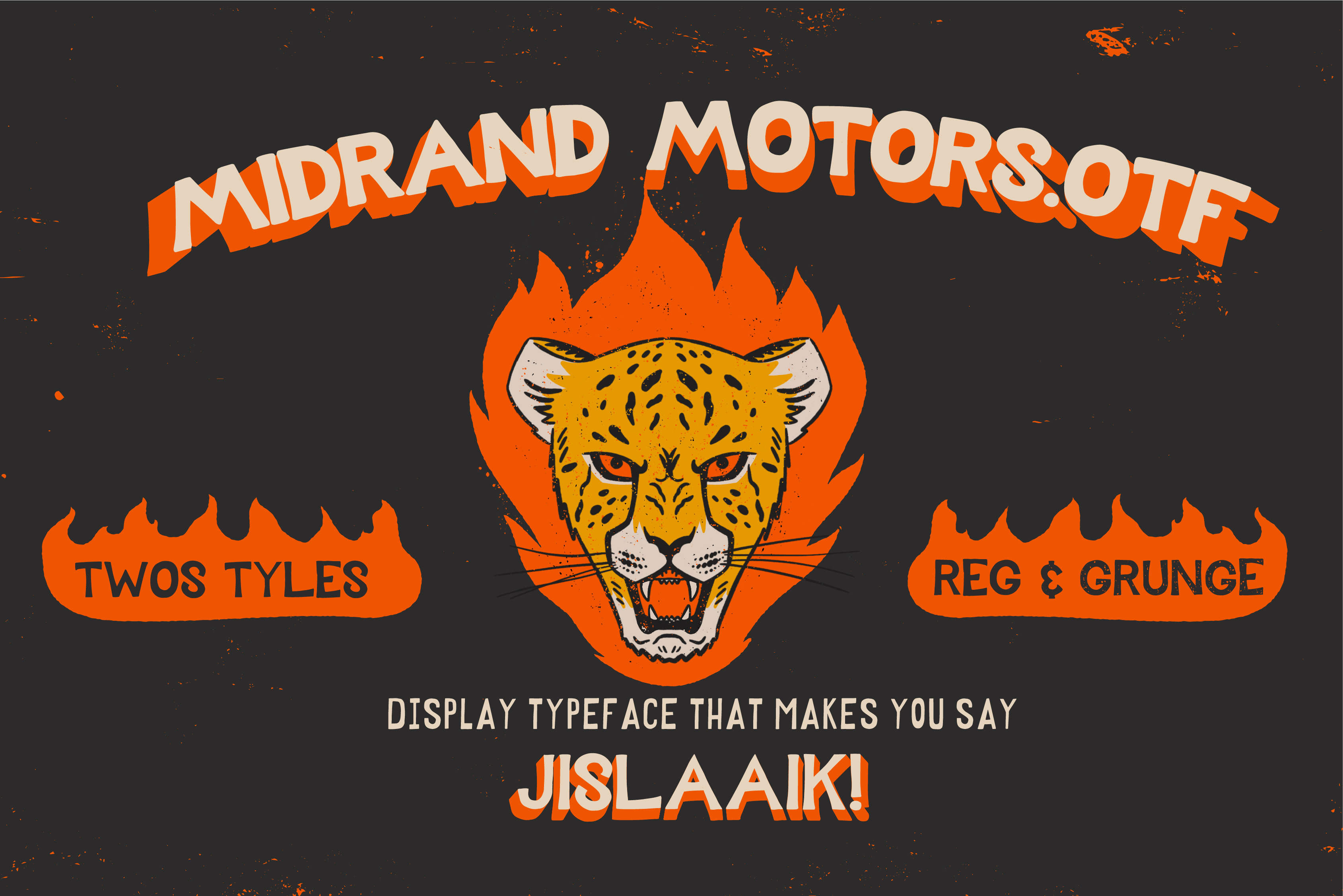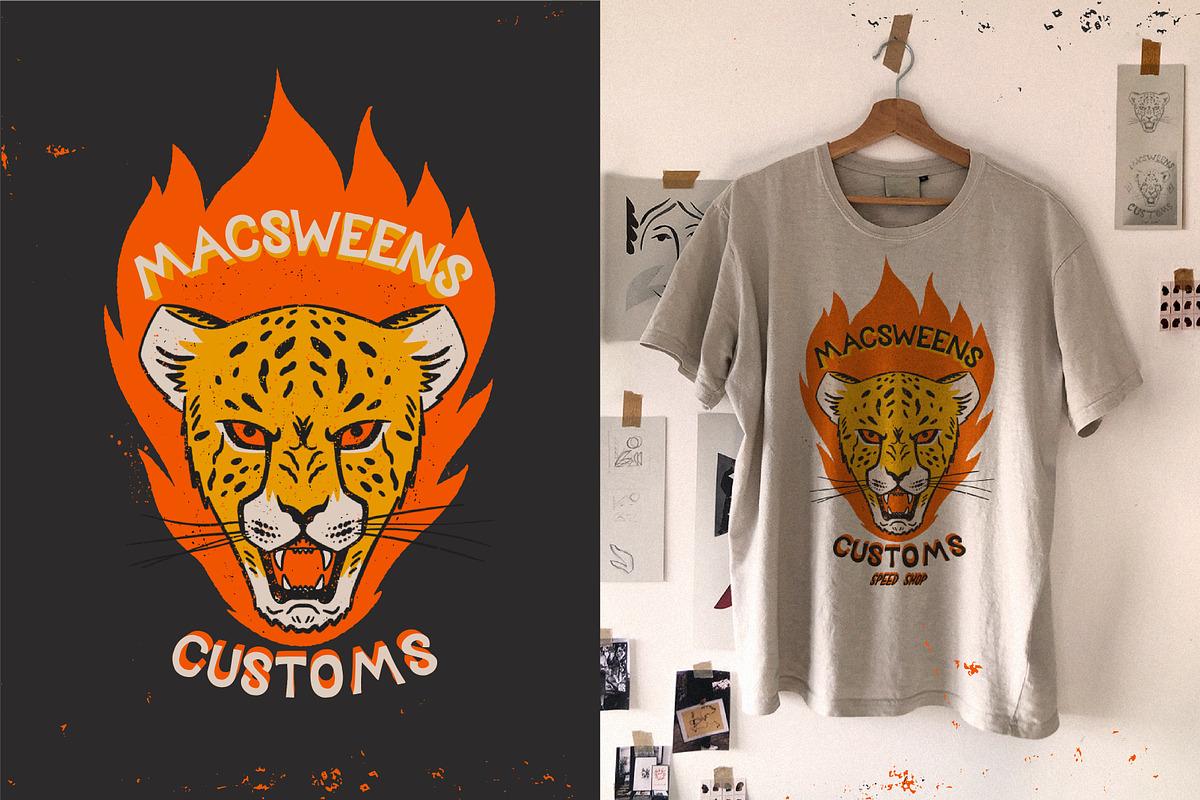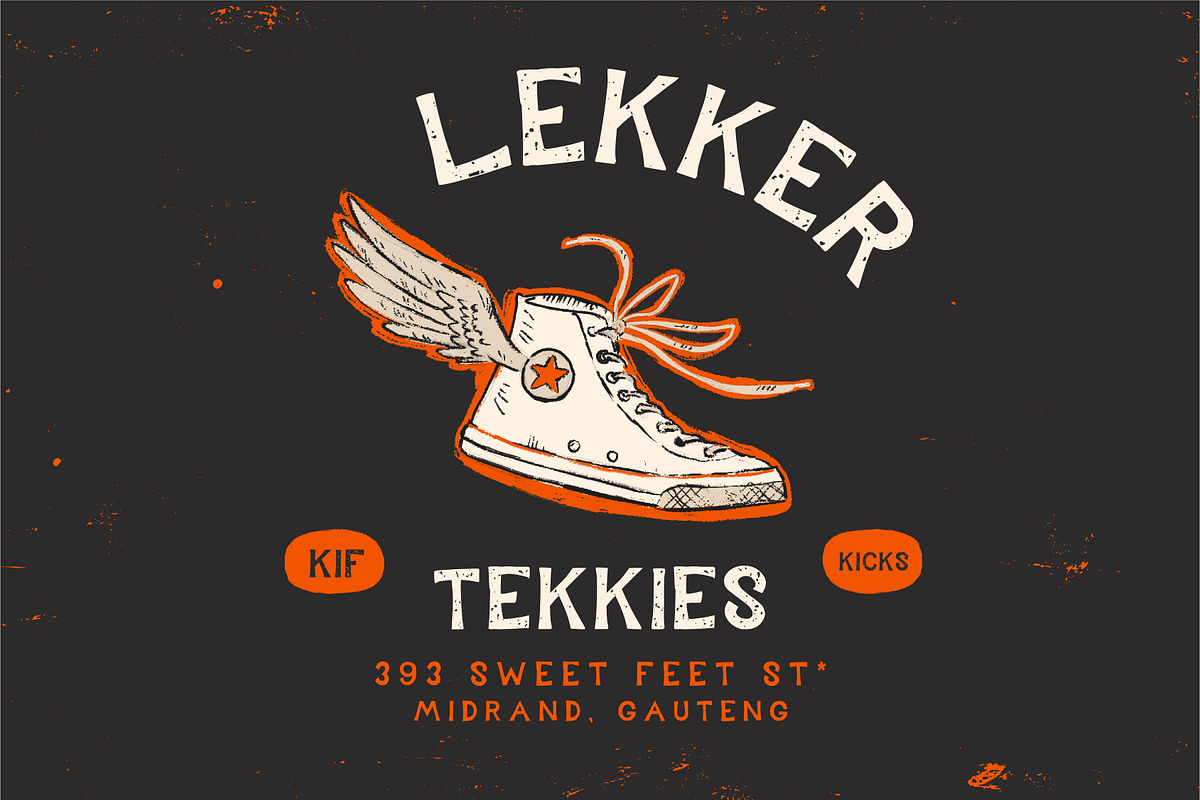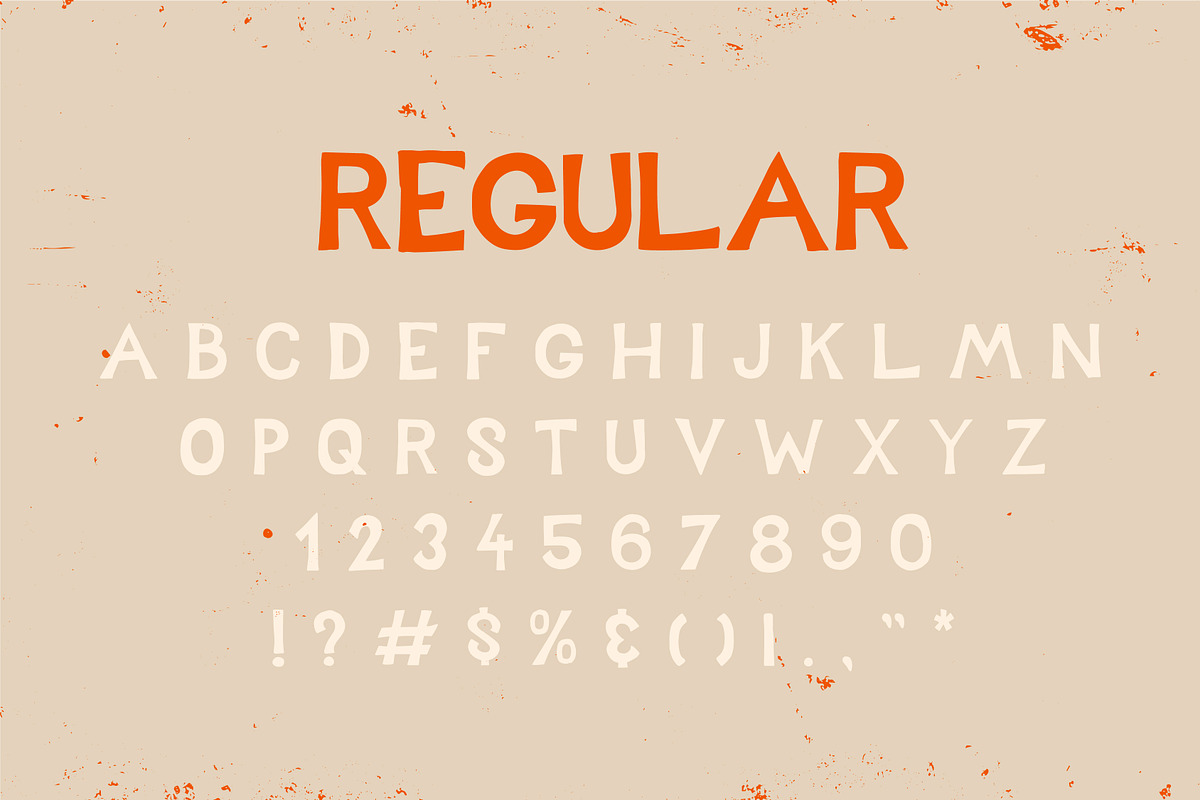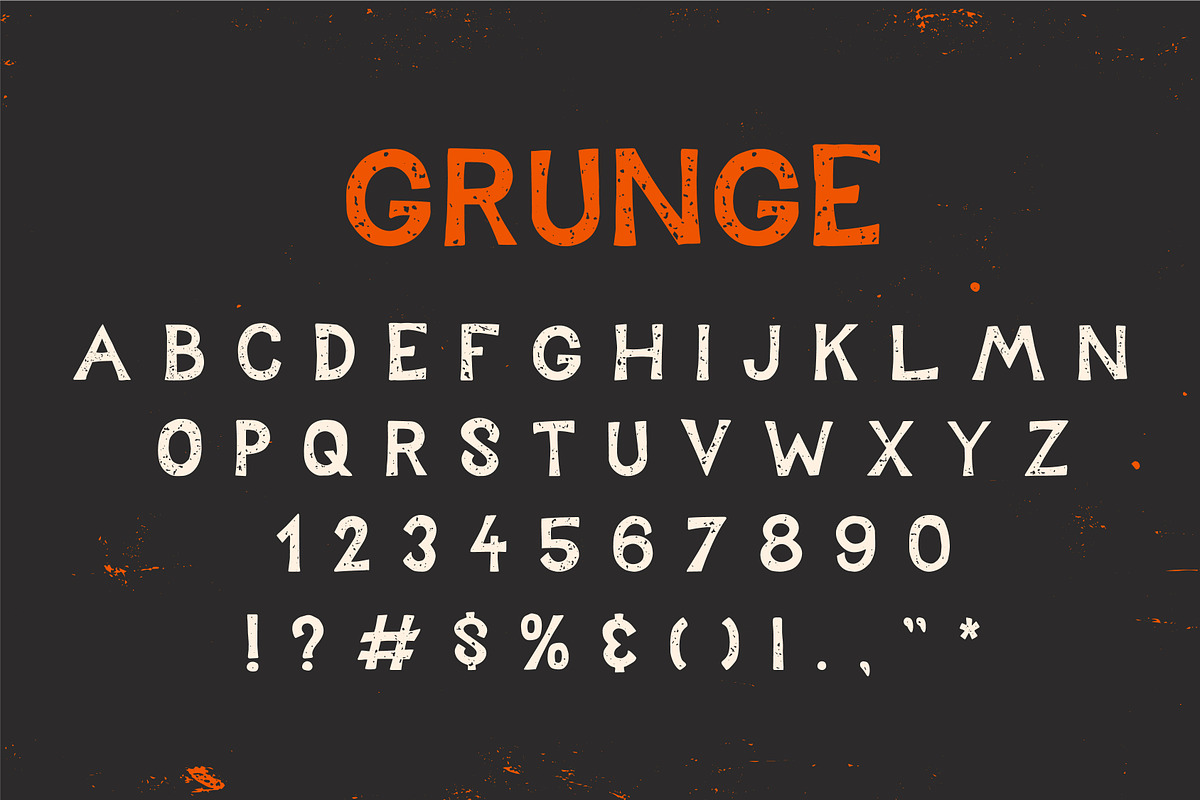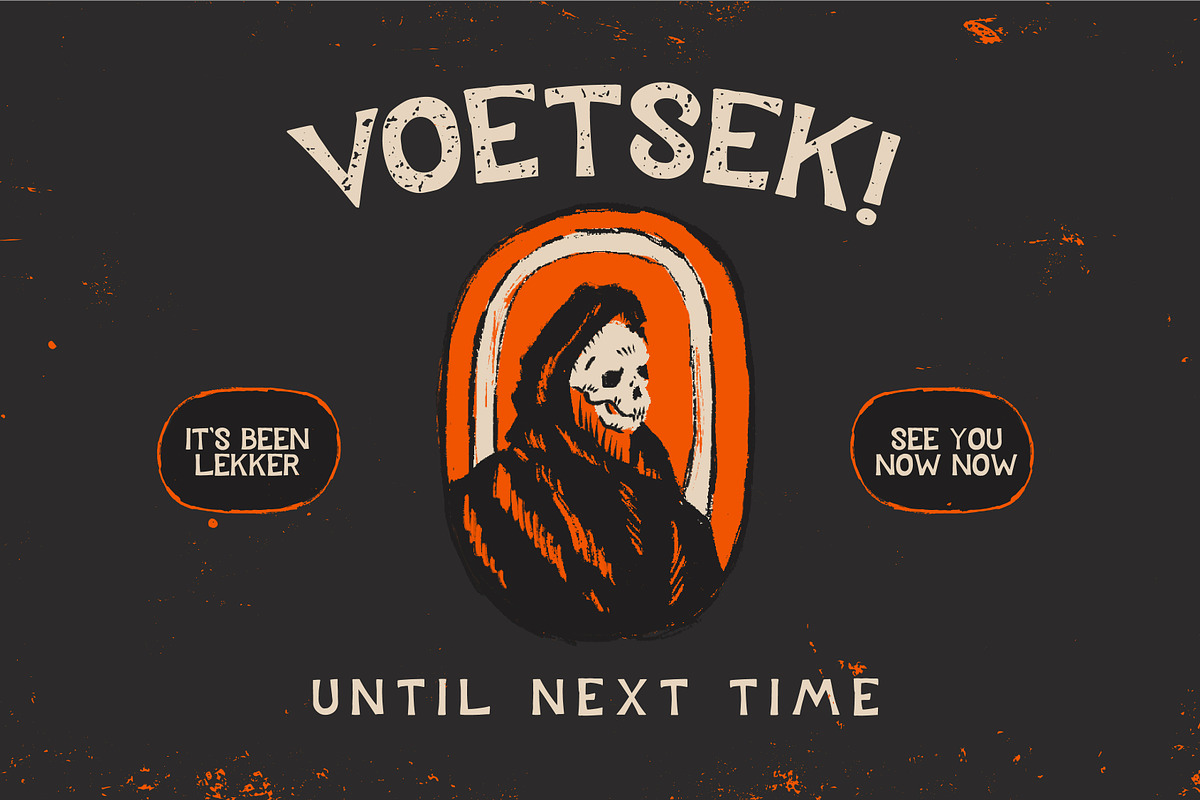
Midrand Motors - Display Grunge font
Midrand Motors, a grungy grungy font family inspired by South Africa's roughness and toughness -Joburg people will know!
Midrand Motor is a quality display font with tons of character. Use it for anything like t-shirt designs or logo creation. Everyone needs a rough and ready font - Midrand Motors is the one for you
- Letters in all caps